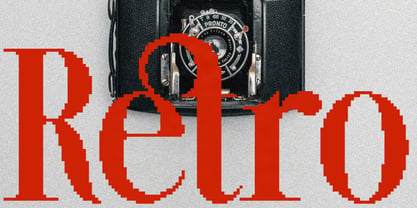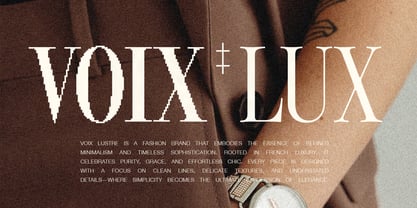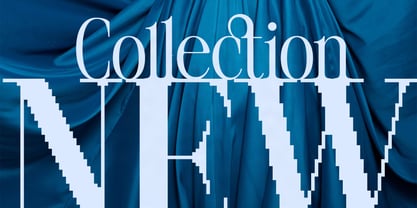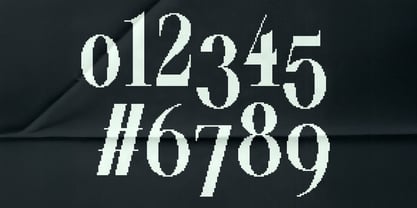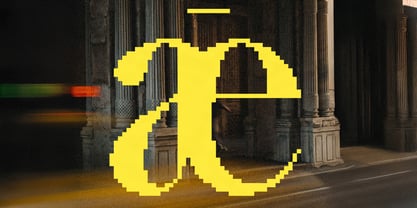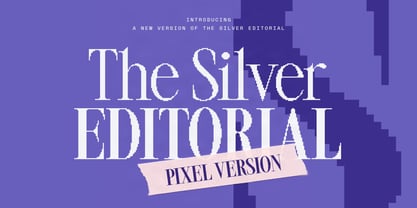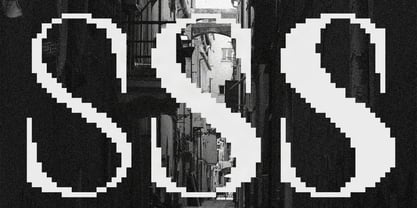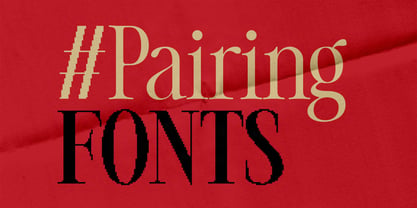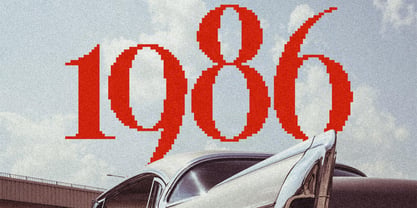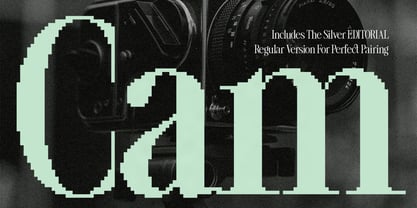
SLTF The Silver Editorial
by SilverStag
The SLTF The Silver Editorial Font Family was designed by SilverStag and published by SilverStag. SLTF The Silver Editorial contains 4 styles and family package options. More about this family
SLTF The Silver Editorial Pixel Version is a nostalgic pixel twist on a refined editorial serif - built for bold headlines, premium branding, and design work that needs contrast. It keeps the elegance and proportions of an editorial typeface, then adds that unmistakable 8-bit texture that makes everything feel instantly more tactile, more playful, and more memorable. The result is a typeface family that can move between fashion and retro, luxury and attitude, classic layouts and modern art direction - without losing its polish. This release includes four fonts: The Silver Editorial Regular (the clean, standard version for effortless pairing) plus The Silver Editorial Pixel Thin, The Silver Editorial Pixel Regular, and The Silver Editorial Pixel Black. That means you can set your main statement in pixel, then support it with clean editorial typography from the same world - perfect for posters, packaging, album covers, campaigns, and brand systems where you want consistency but not predictability. It is especially strong for logo explorations and wordmarks, because the pixel cuts bring character, while the Regular keeps things crisp and timeless. Every purchase also includes a free update with four additional fonts coming soon (no ETA at the moment): the italic versions of all four included styles. If you want a type family that feels editorial at its core, but has the option to go full nostalgic when the concept demands it, this is the bridge - clean when you need it, pixel when you want it, and always designed to look intentional.